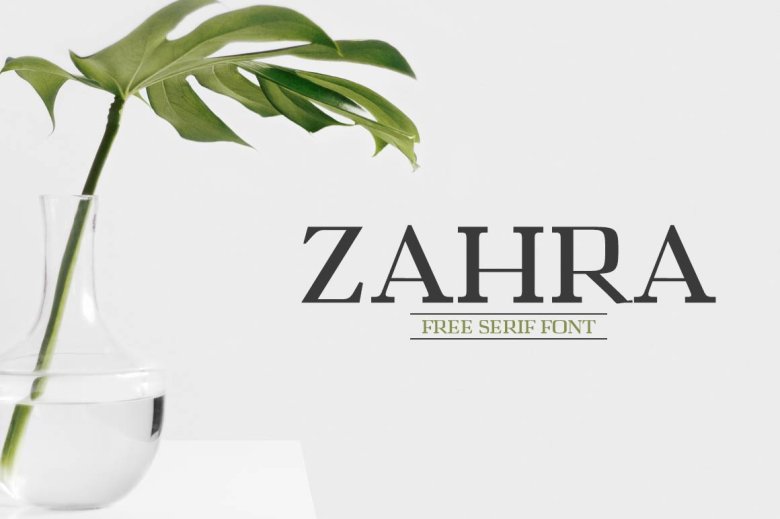
Zahra Serif Font
A versatile complimentary font. Introducing Zahra Serif Font! Zahra Serif designed and shared by creativetacos. Zahra Serif Font is a bold and geometric shape font with little art-deco touch. It’s a lovely and unique serif font allowing you to make each word stylish! It Suits best for modern / clean designs, logos, headlines, banners & templates etc.